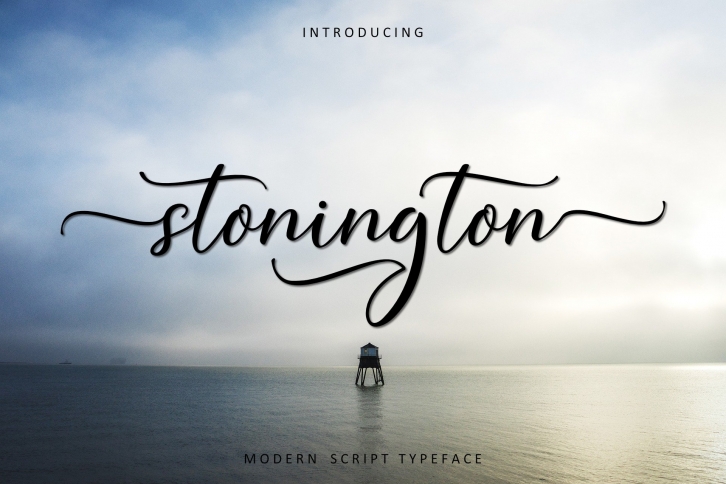
stonington is a great font that was designed by Coretanletter. Imagine the amount of combinations you can create using this font! The archive is 3.14 MB and it was released on March 6, 2021. stonington looks beautiful on wedding invitations, greeting cards, logos, posters, labels, t-shirt designs, logos, business cards and is perfect for use in ink or watercolor works, fashion, magazines, packaging and food menus, children's books and more!